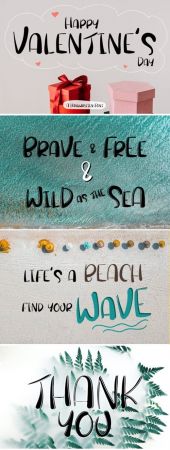
Happy Valentine’s Day is a unique script font. Clean and a little bit quirky, this font is the perfect fit for all of your logos, branding, social media, and crafty DIY projects.